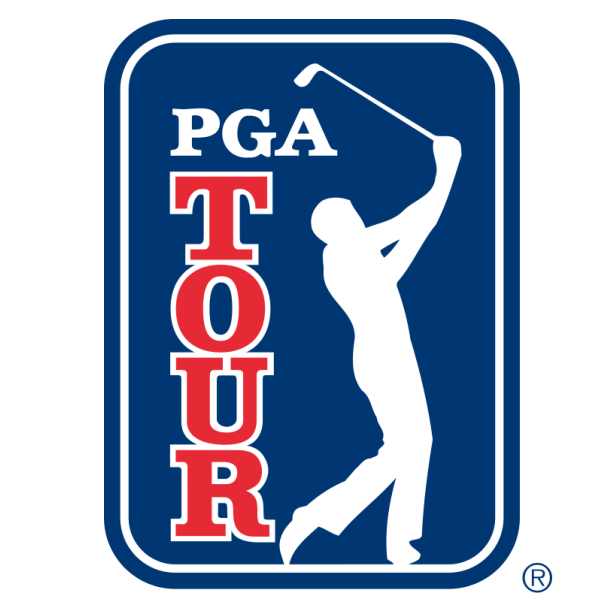
PGA Tour Font
Fonts in UseThe PGA Tour is recognized as the premier men's golf tour globally and showcases elite-level golfing talent and exciting competitions.
The PGA Tour logo features a font resembling Clarendon Bold, a classic slab serif typeface popular for modern logos, vintage-style posters, and its association with American Old West wanted posters.